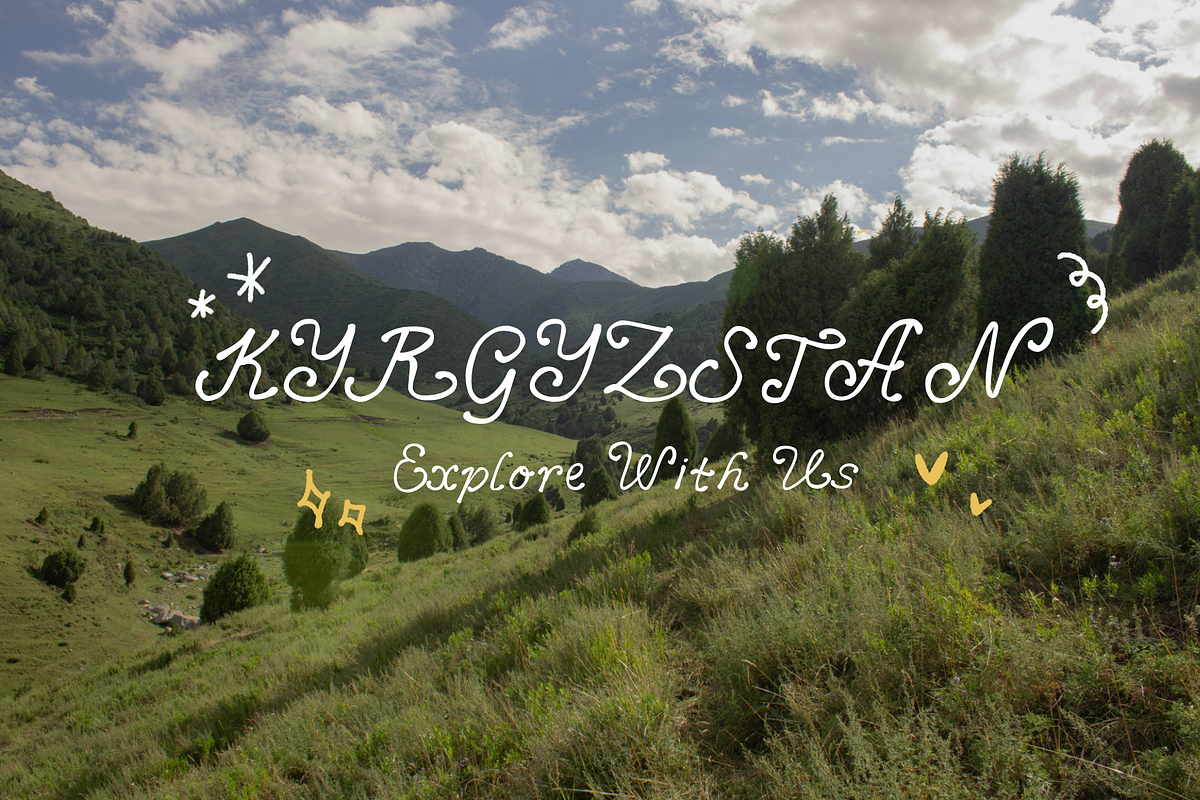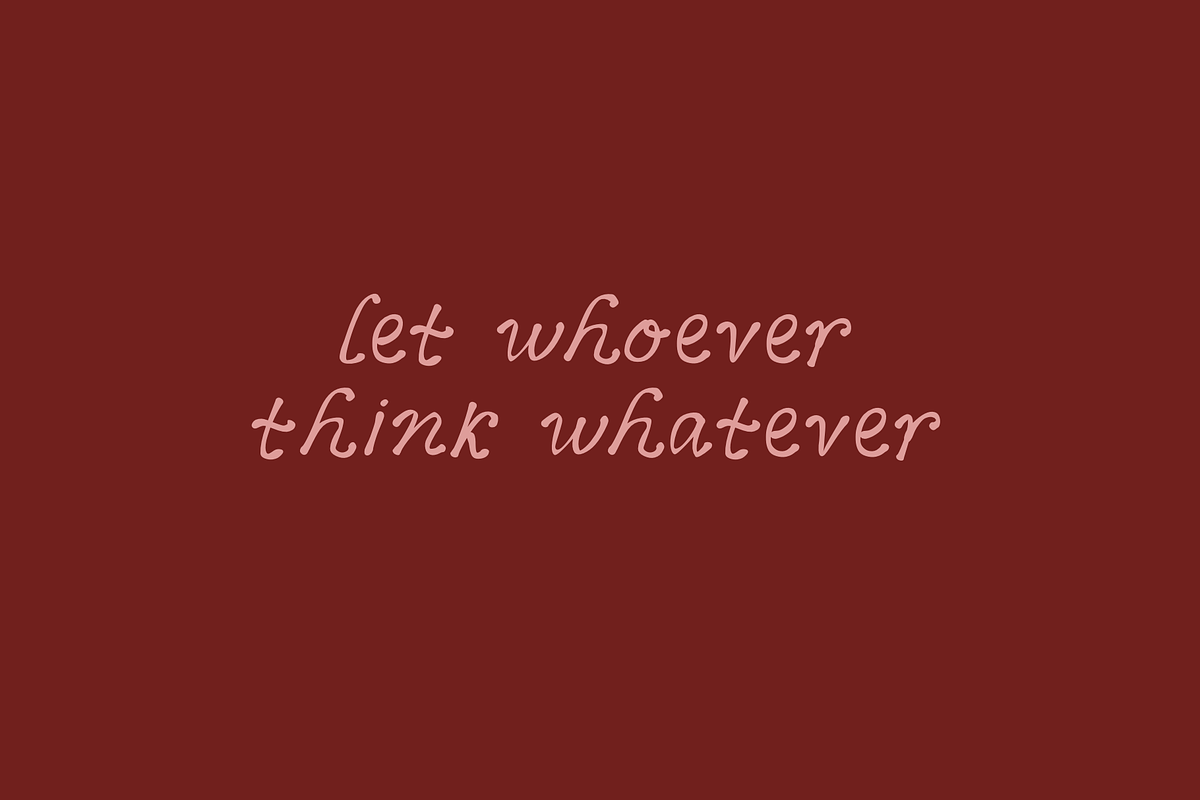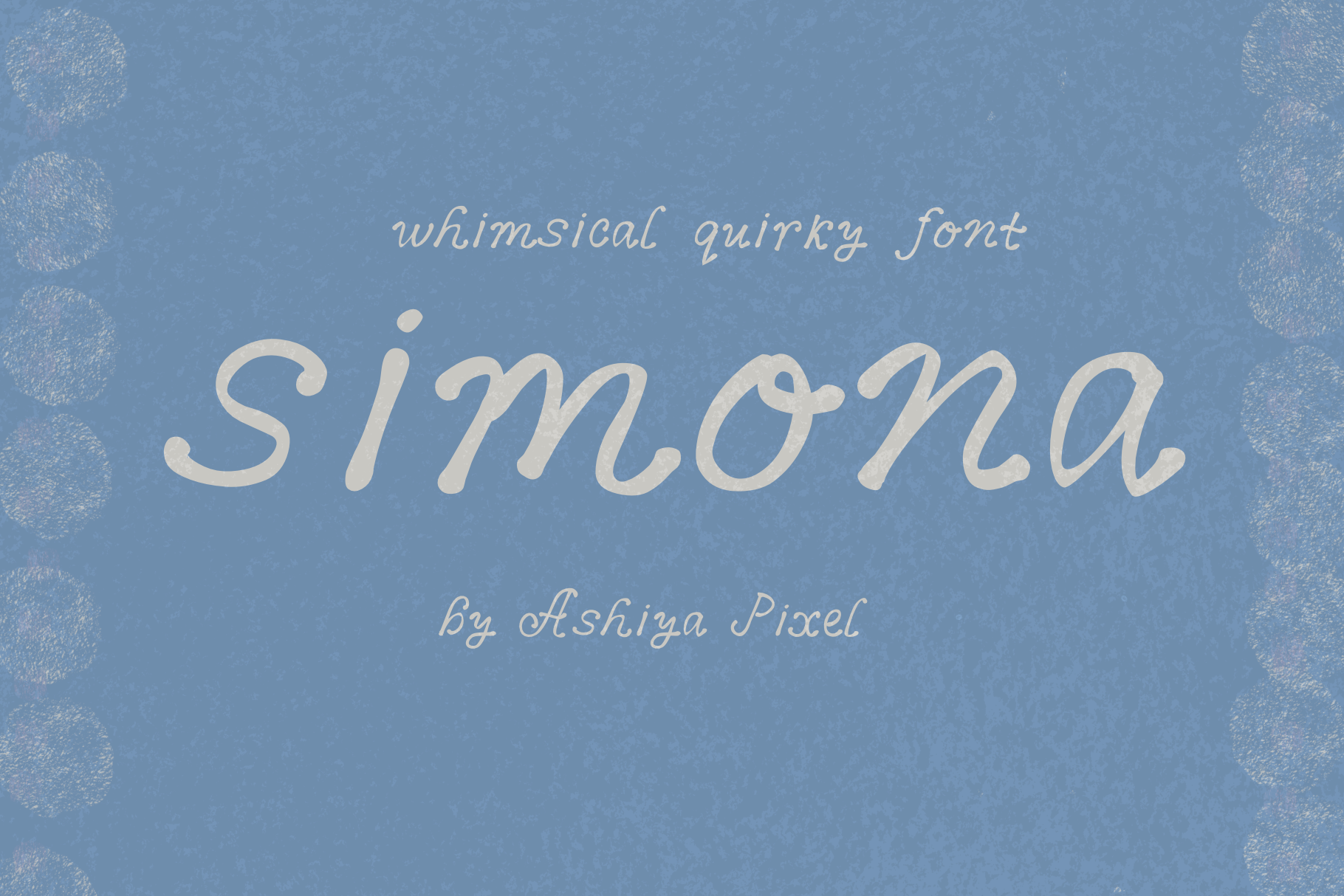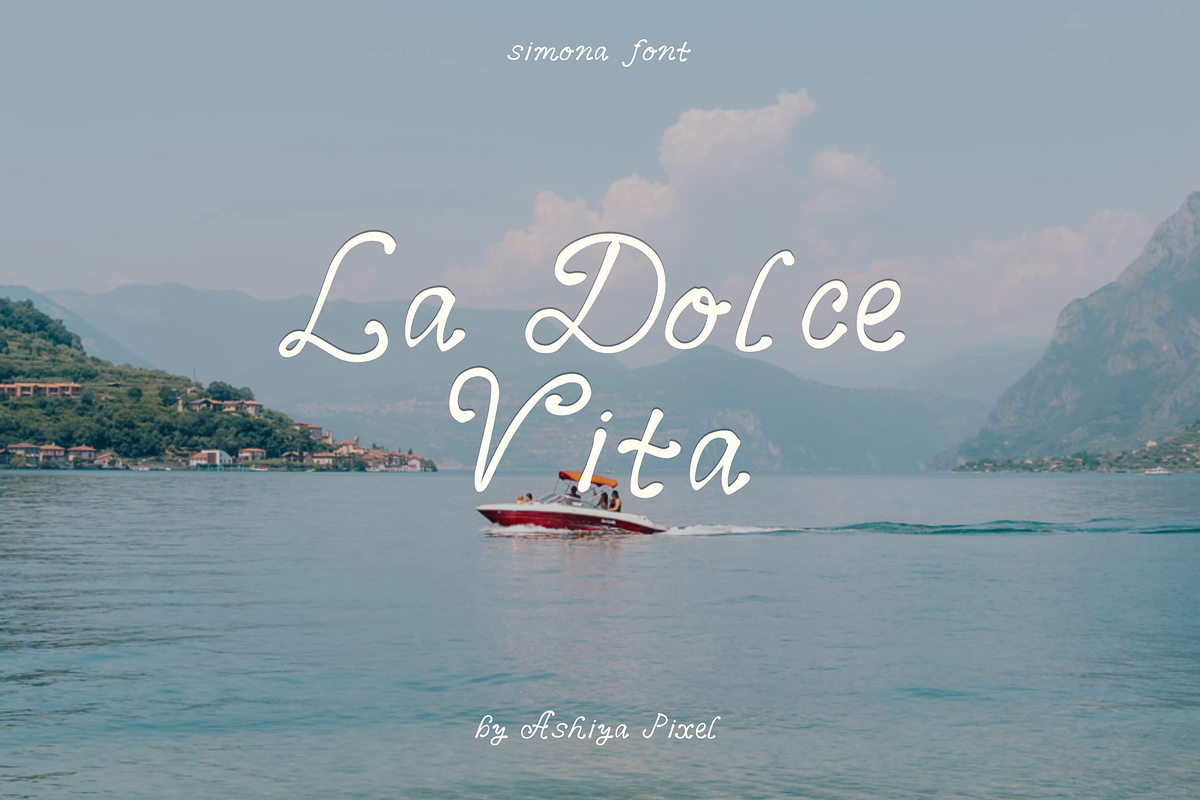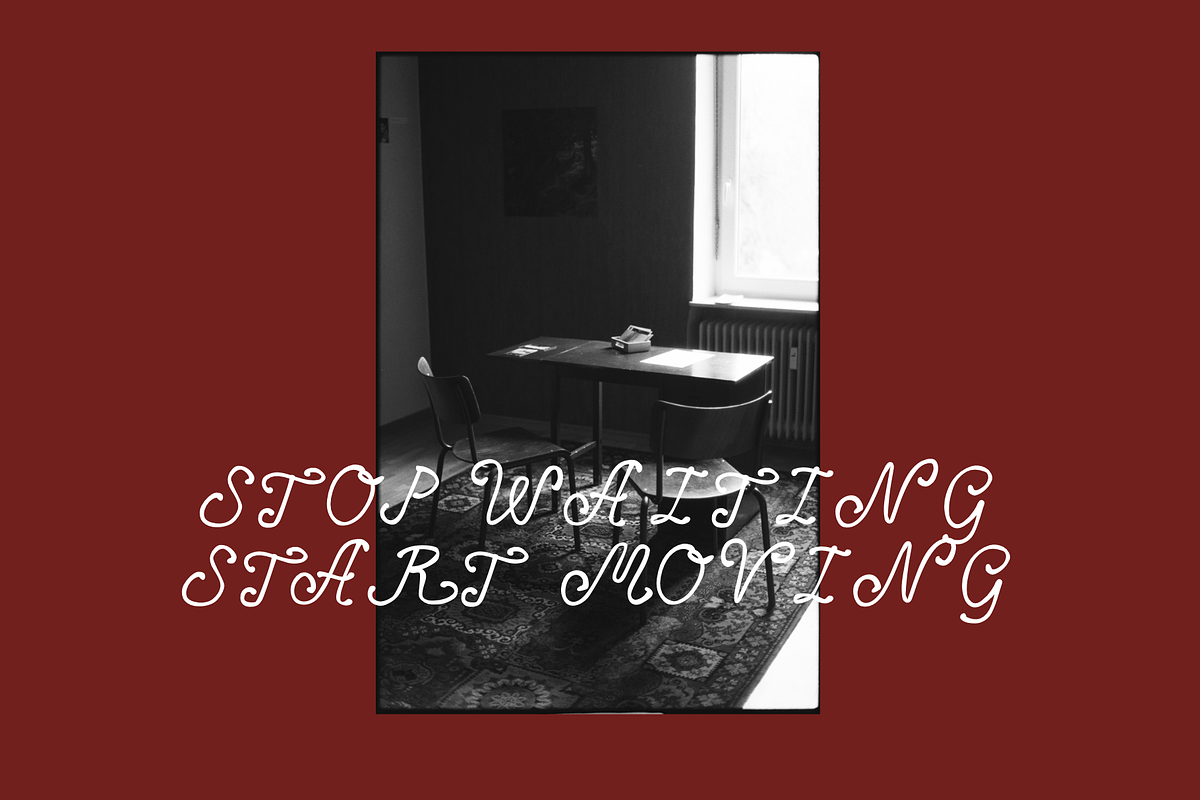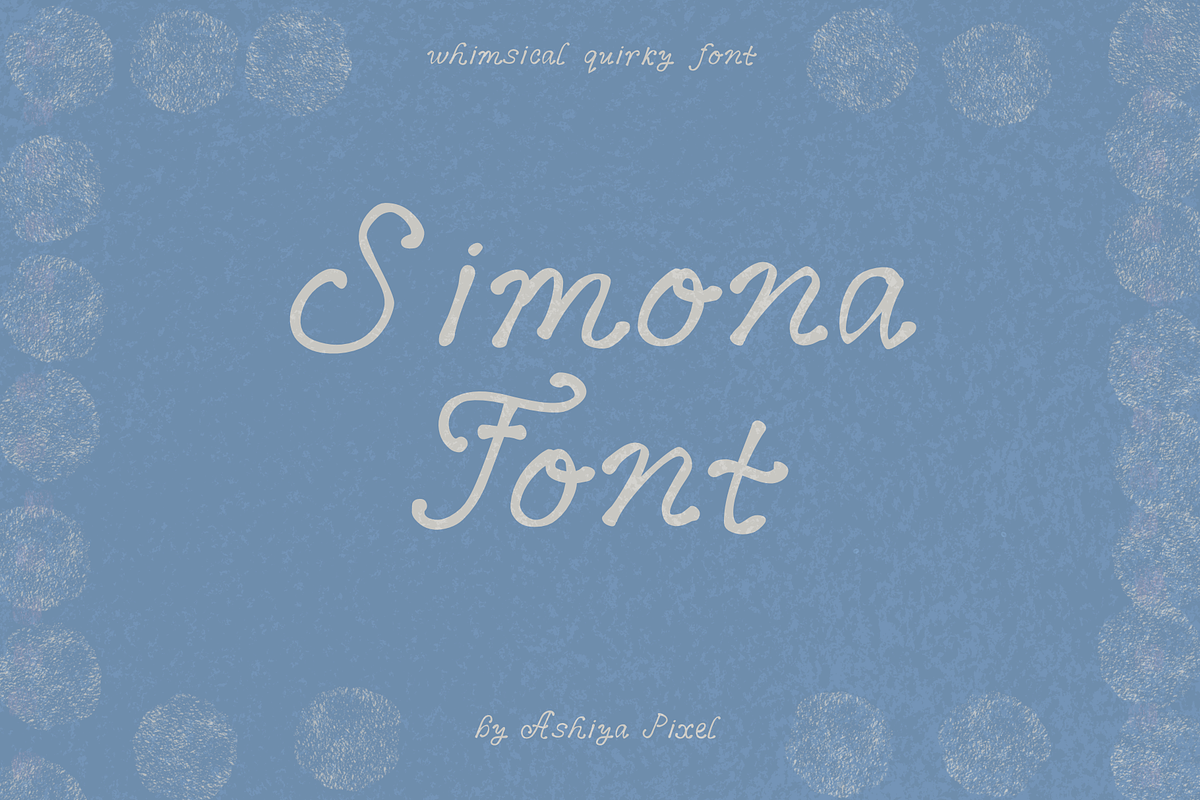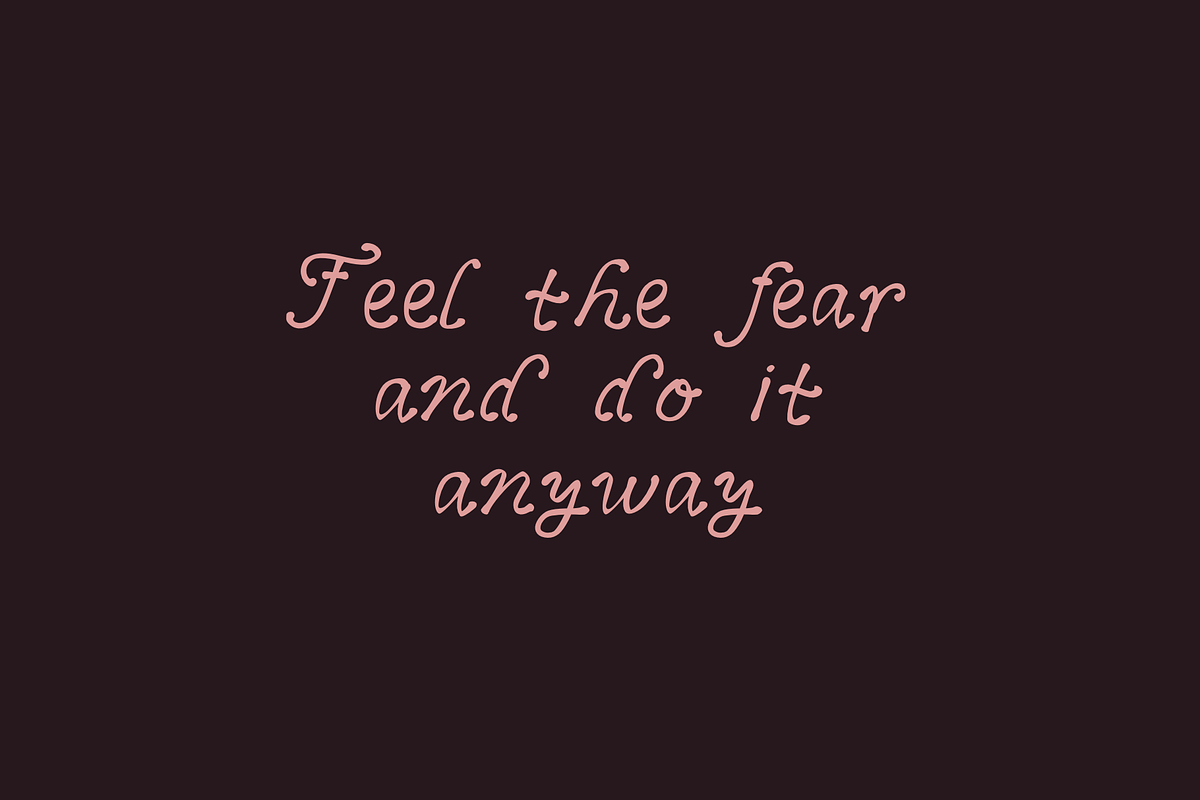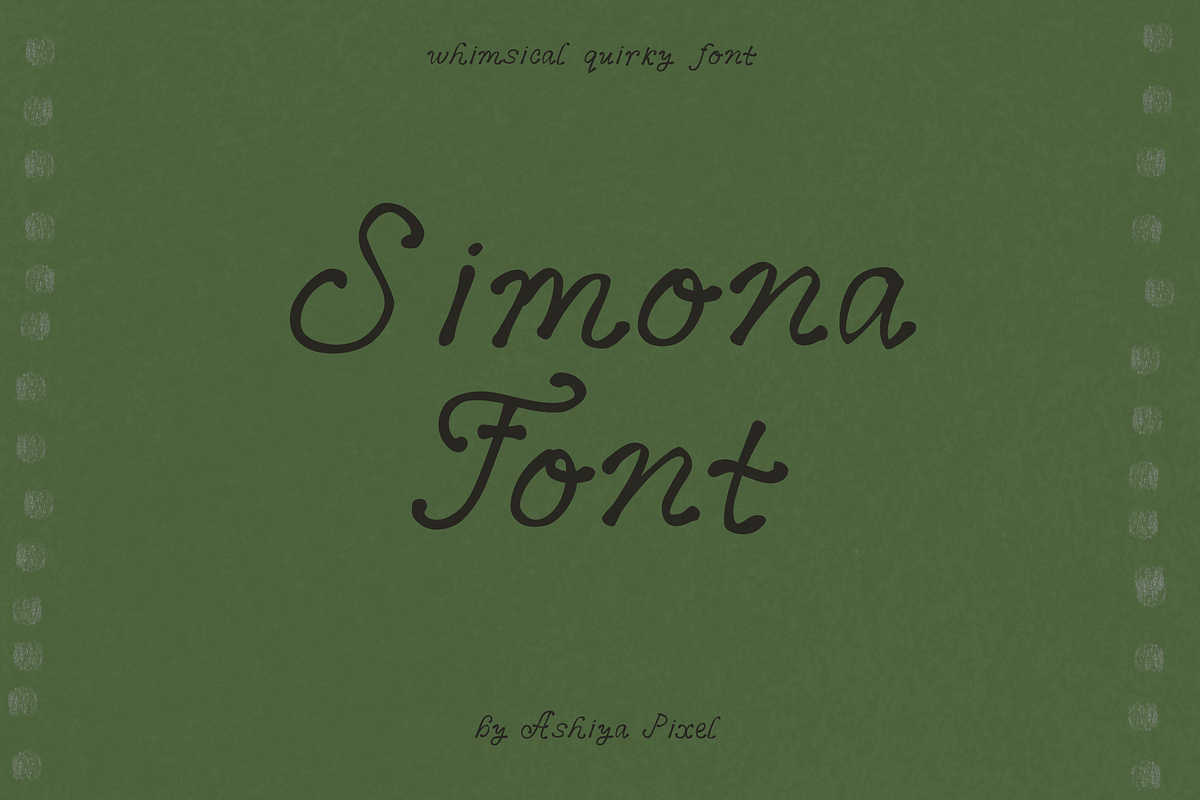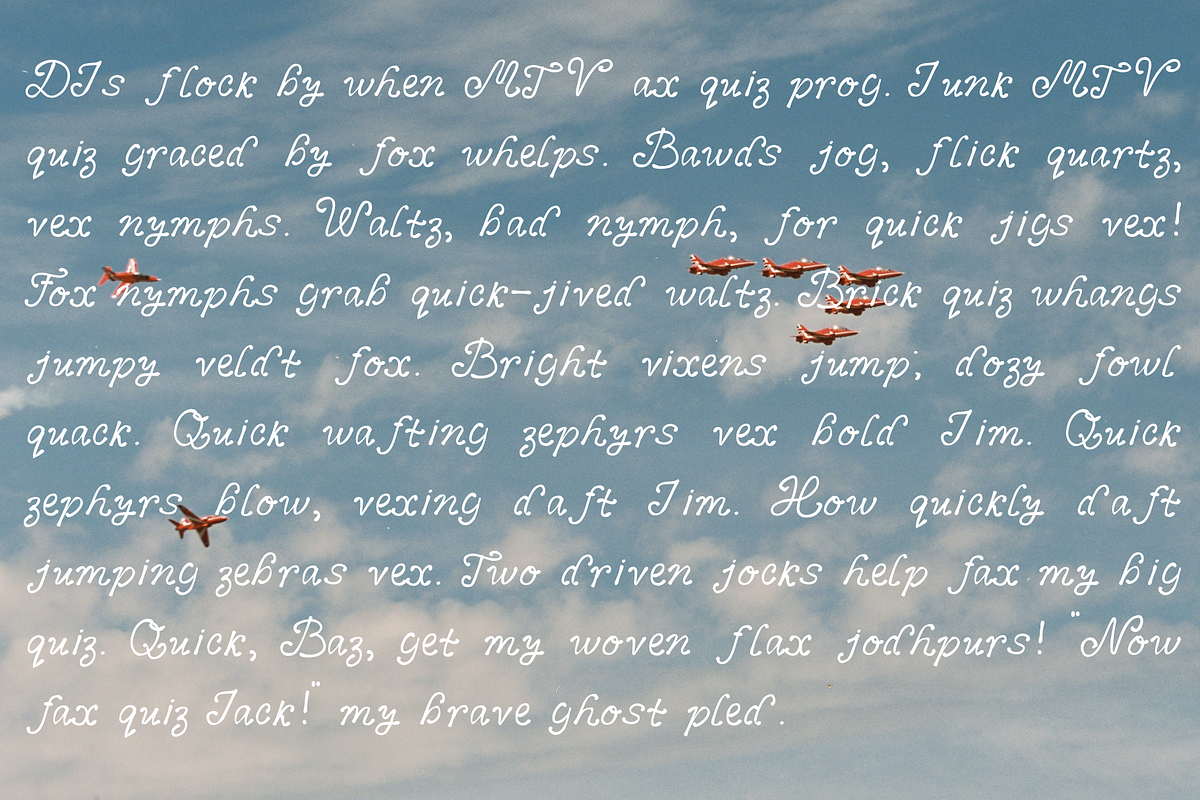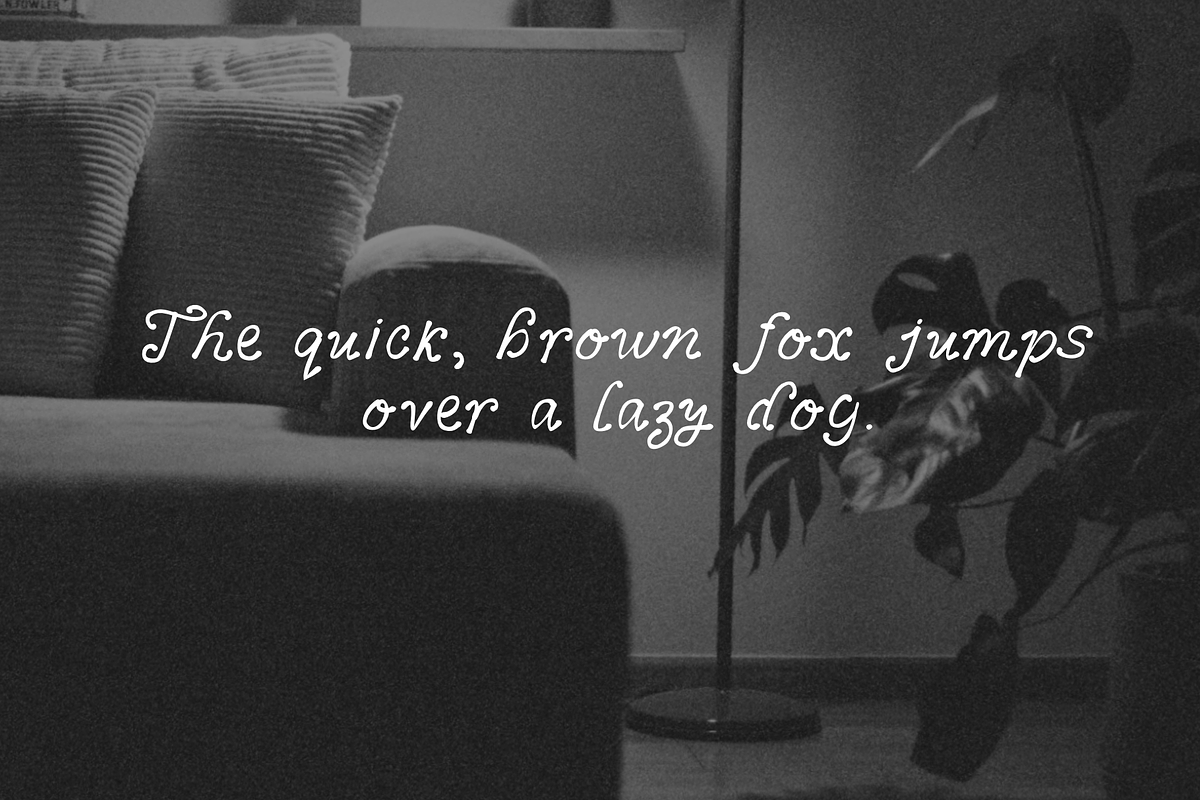
Simona Elegant Quirky Font
Children’s book covers, nursery decor, vintage-inspired packaging, greeting cards, quote prints, logo design, craft projects (Cricut/Silhouette), and whimsical social media graphics.